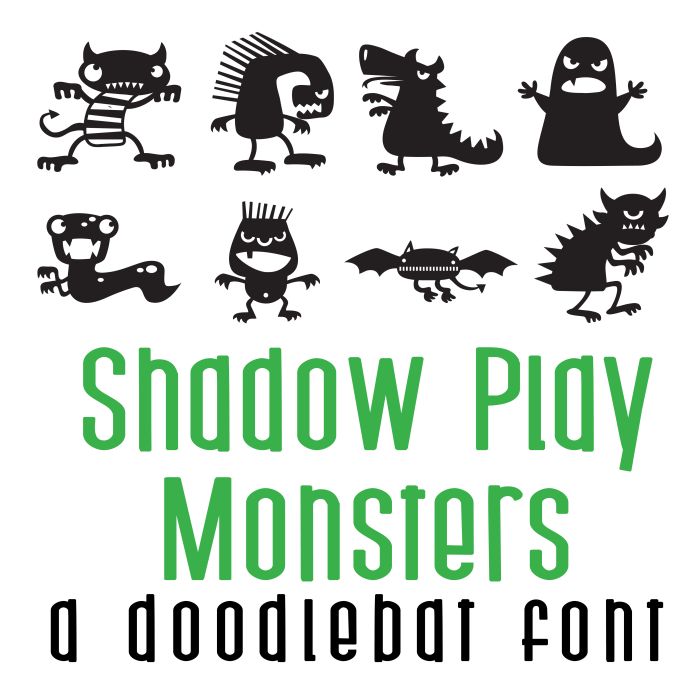
This doodlebat font features 26 adorable monster silhouettes! Perfect for Halloween, classrooms, teachers, gifts, decor, scrap book pages, planner stickers and more!. Perfect for cards, crafts, gifts, decor, scrapbook pages, planner stickers, classrooms and more!